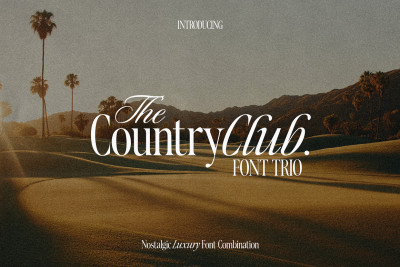
Country Club - Luxury Serif & Script Font
Designers reaching for Country Club - Luxury Serif & Script find a typeface that holds up across diverse media — print, web, and motion.